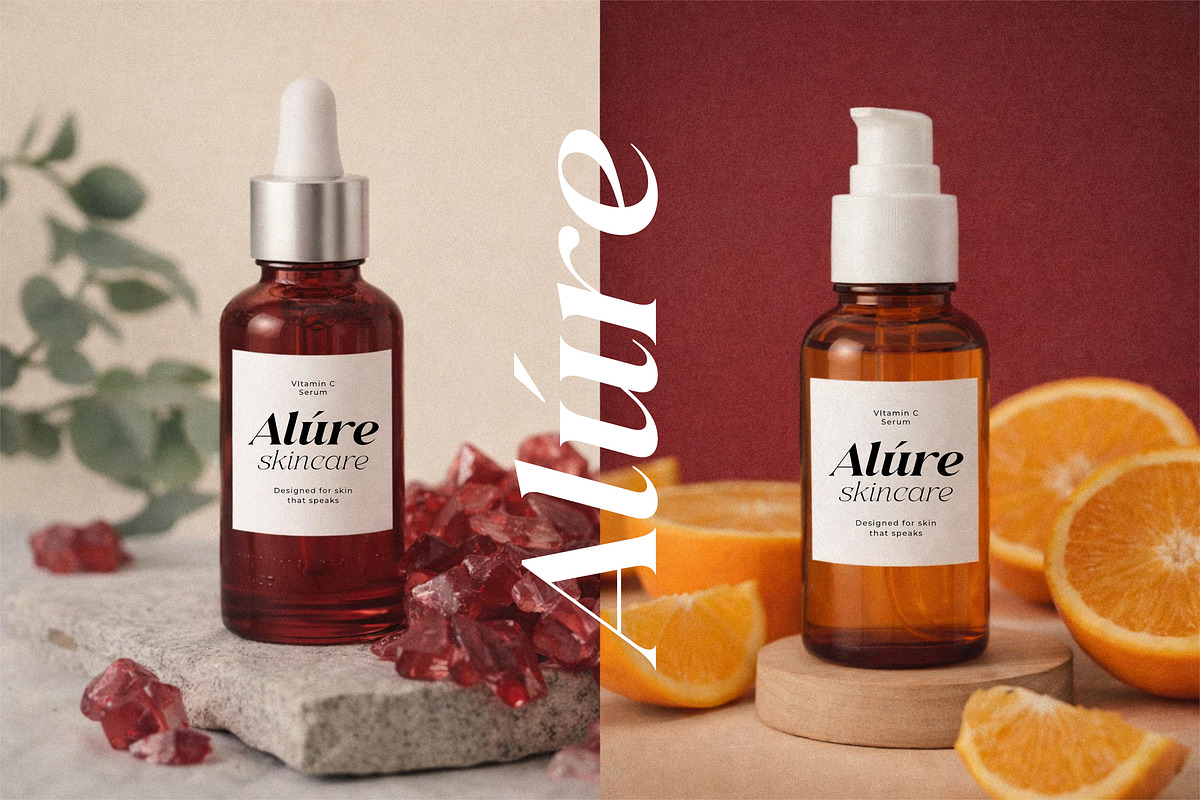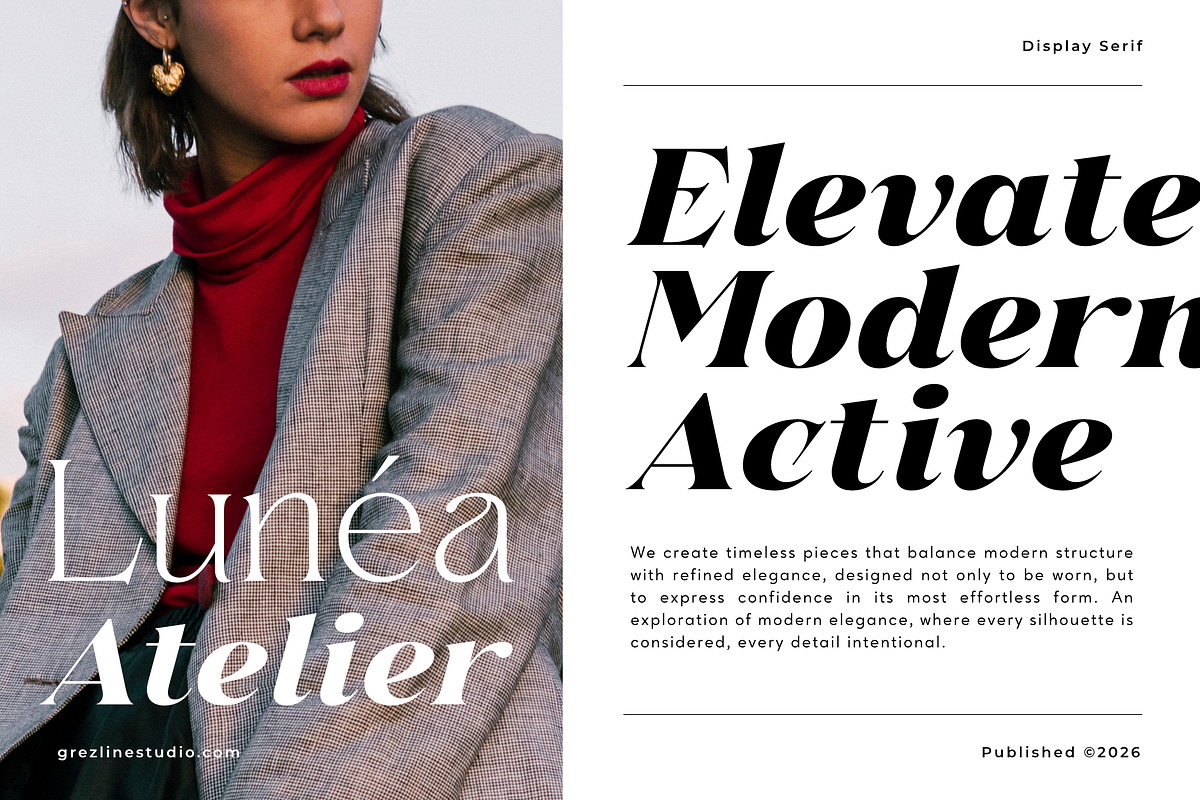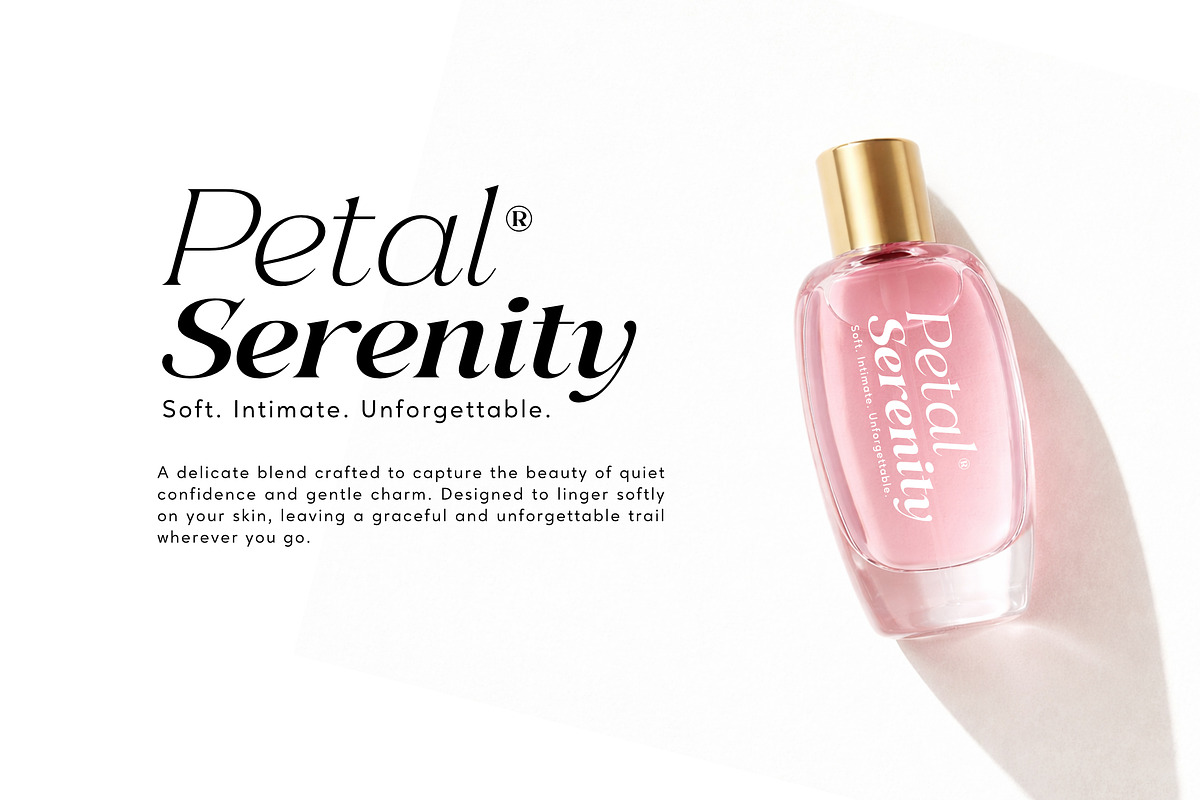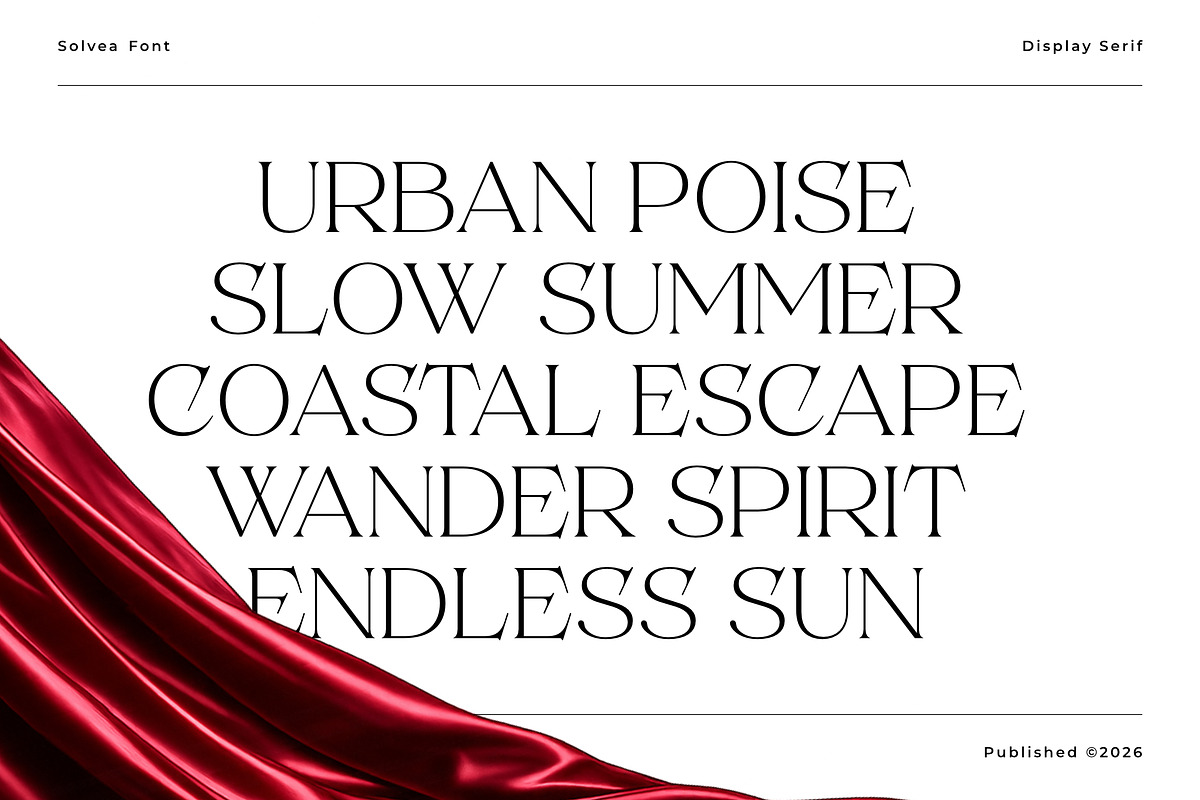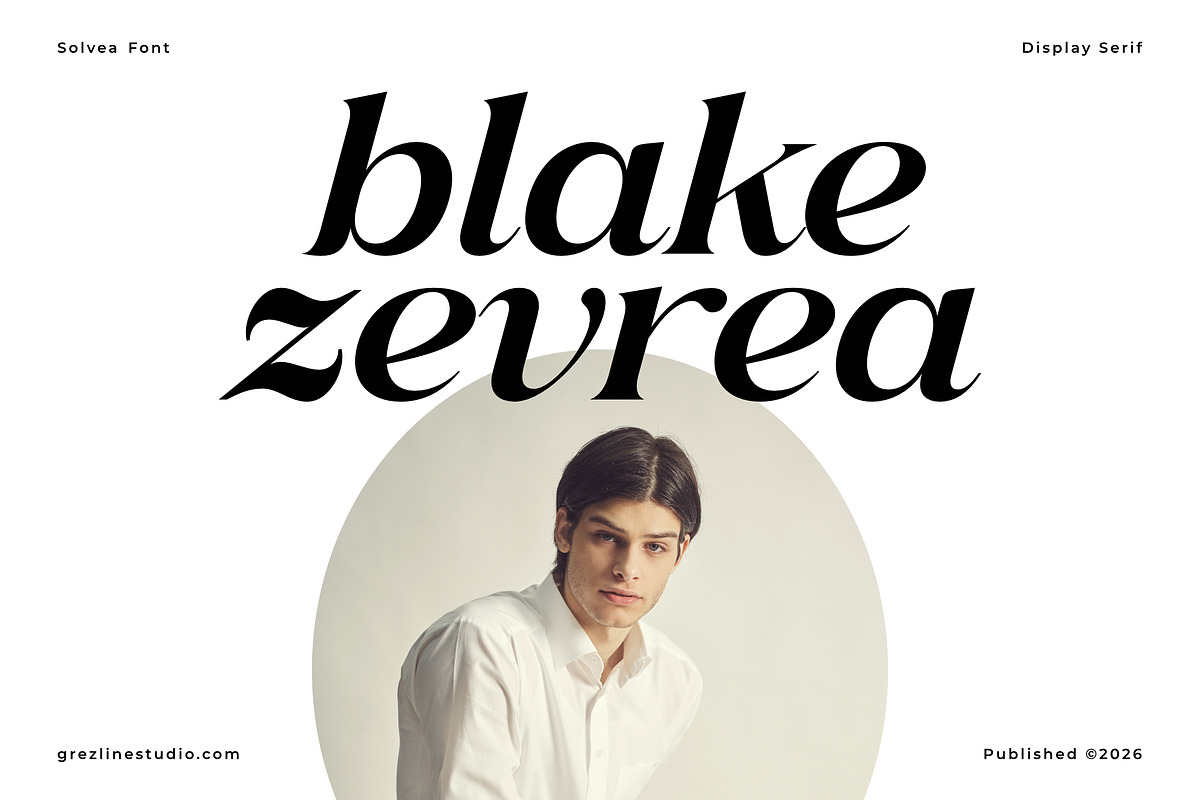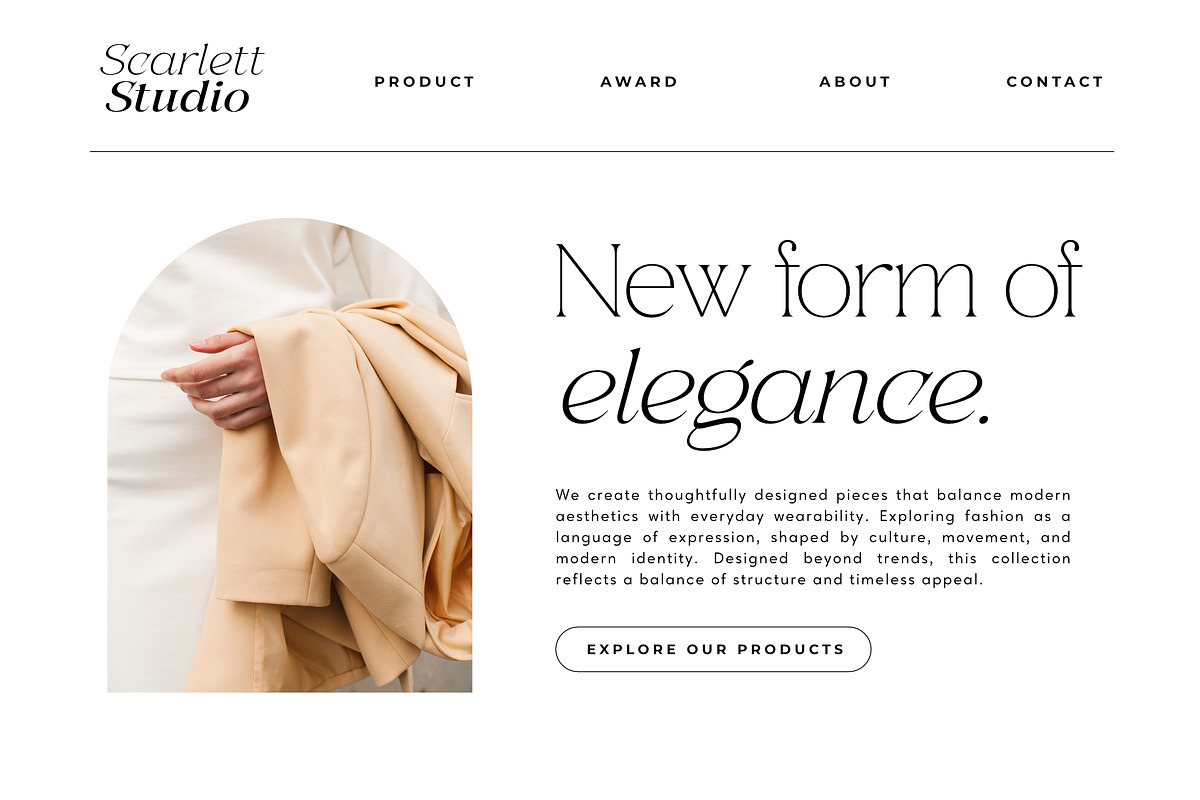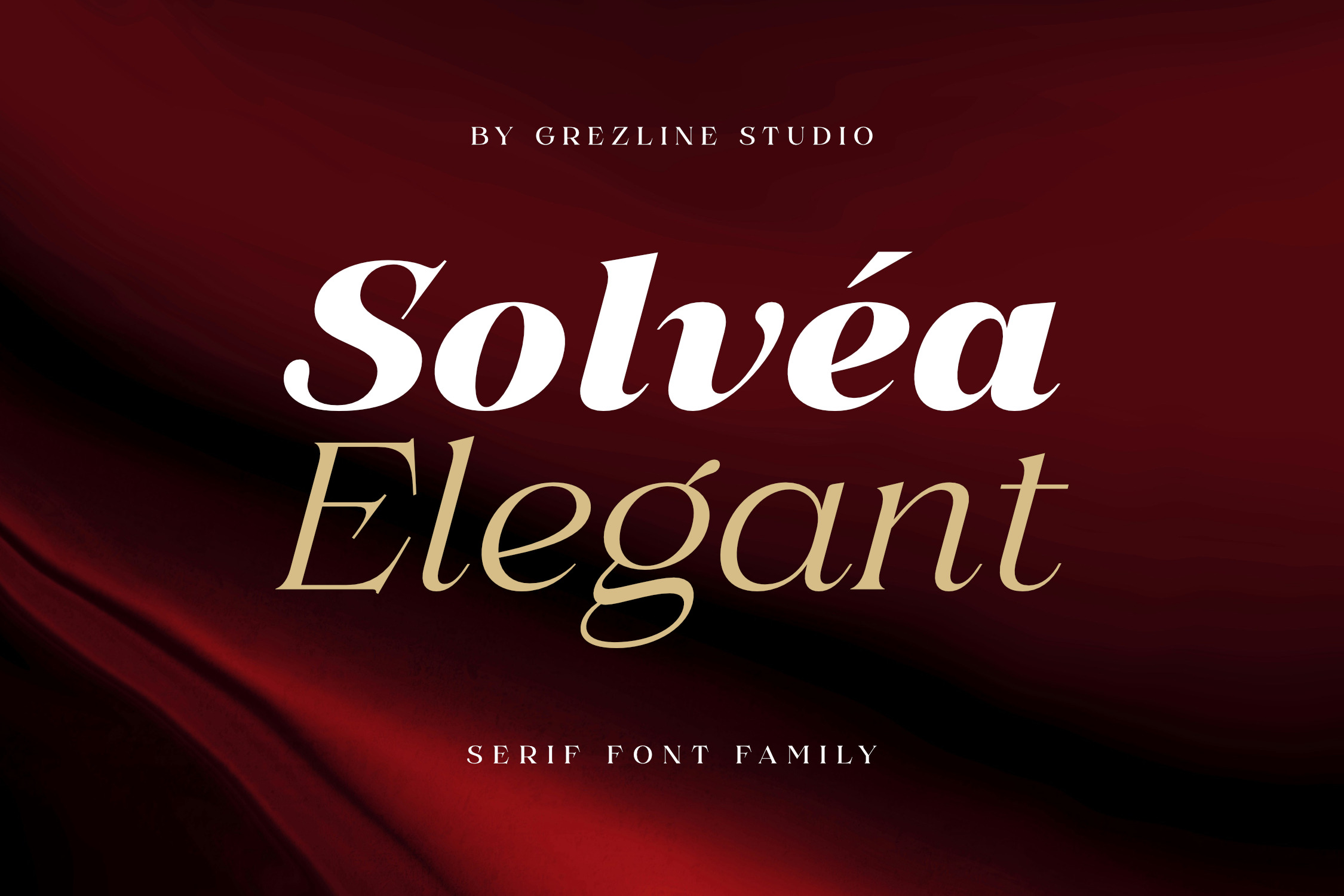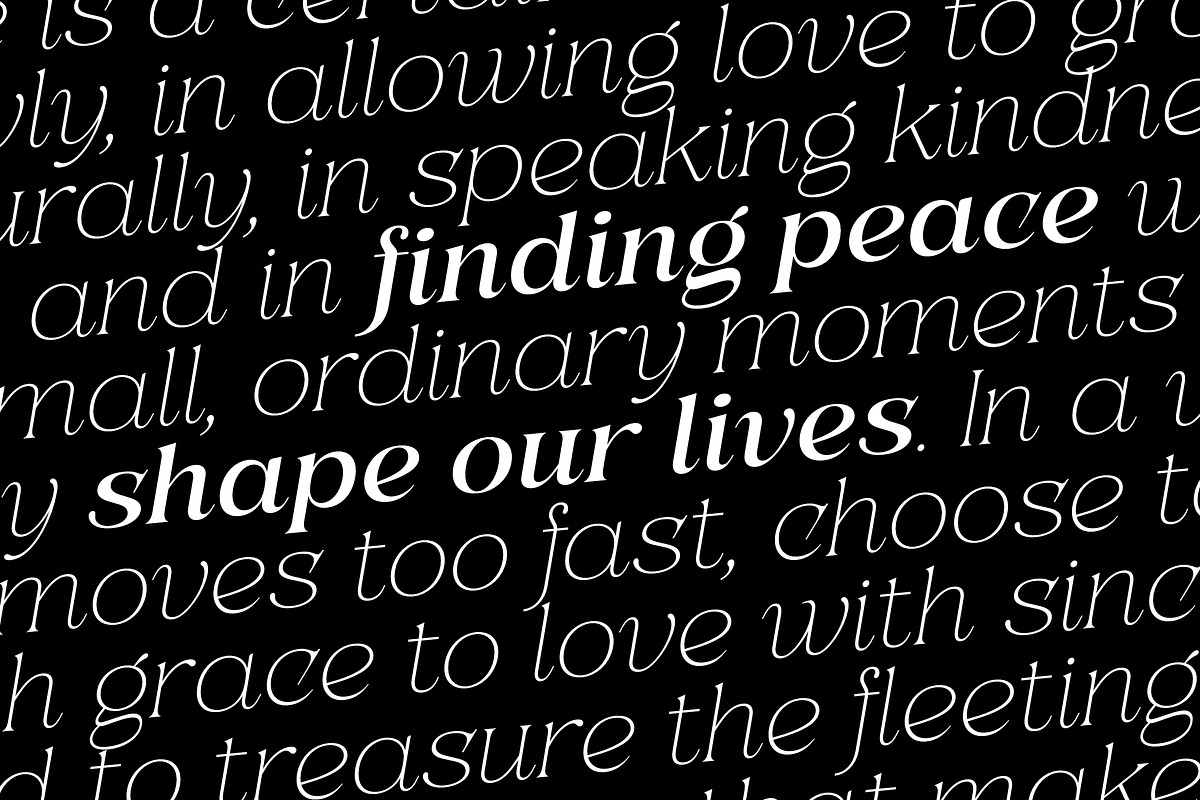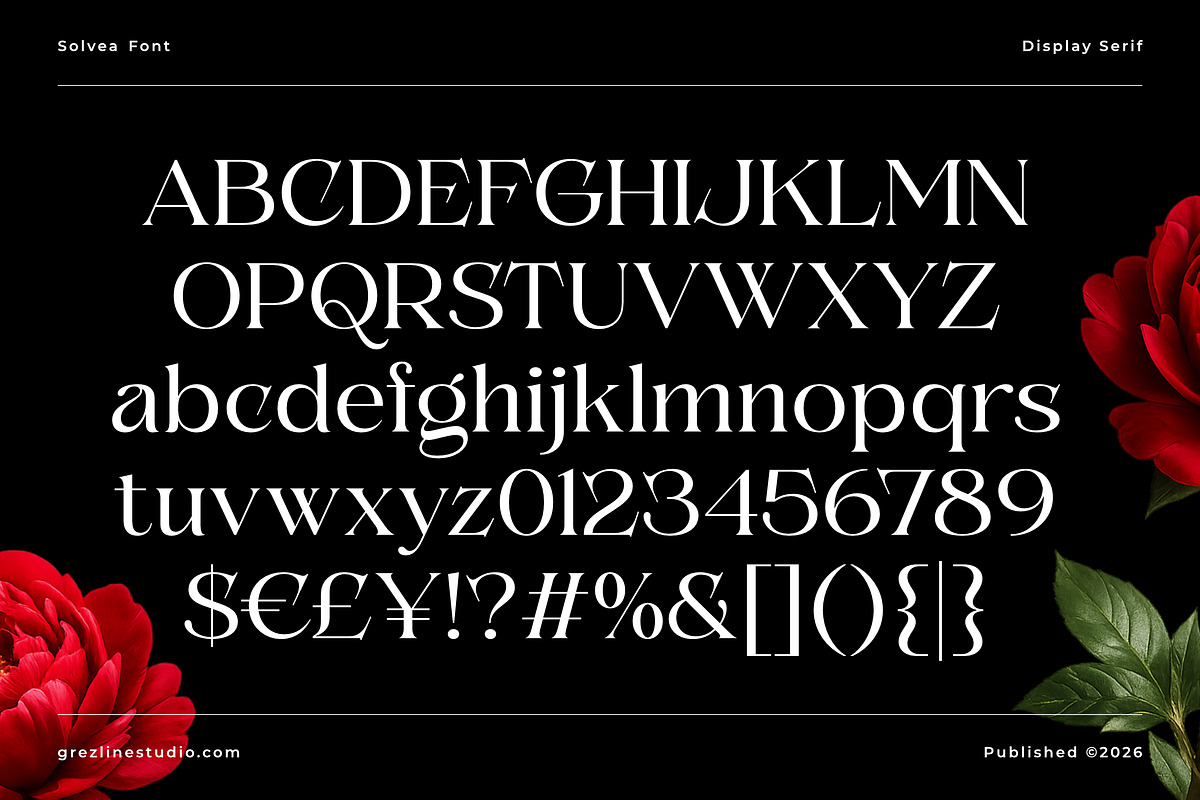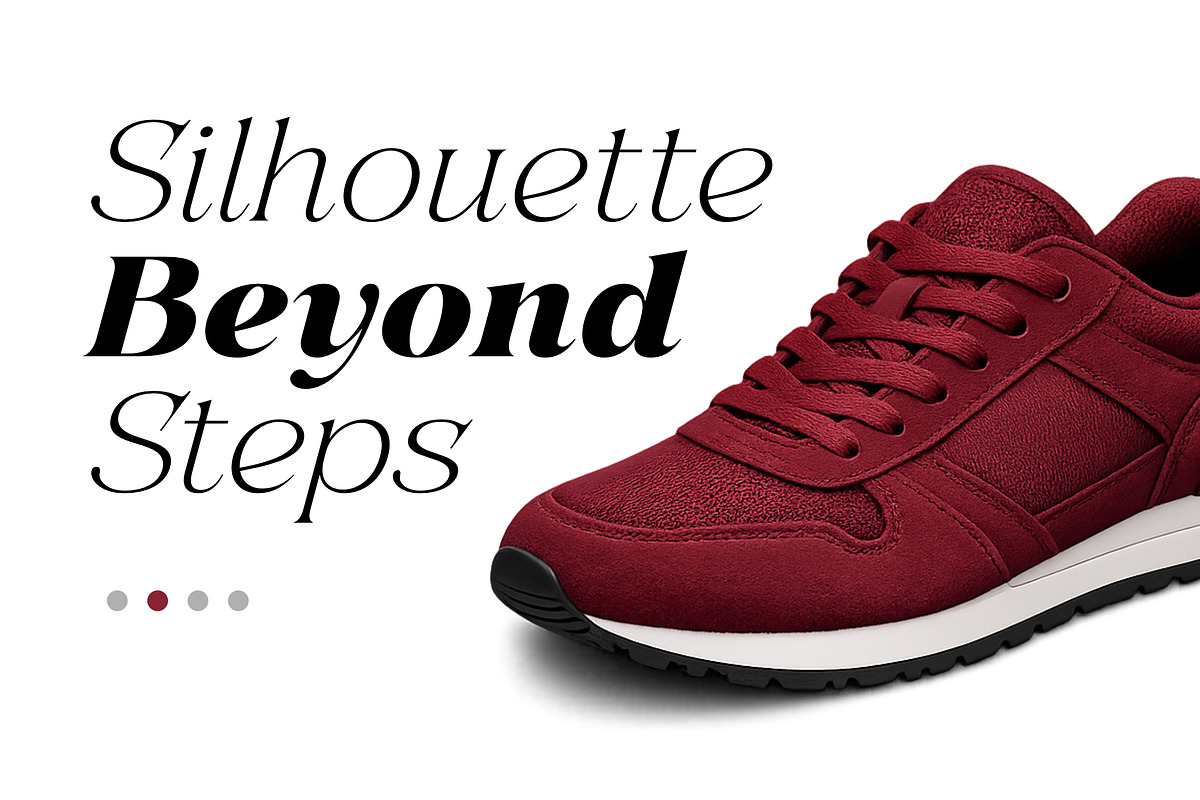
Solvéa – Serif Font Family
Solvea Typeface is designed to adapt seamlessly across various creative directions — from luxury branding and product packaging to modern digital layouts and editorial compositions. Its balanced structure and elegant flow allow every composition to feel intentional, polished, and visually compelling. Crafted with a refined high-contrast design, Solvea brings a distinctive presence while maintaining clarity and readability. Each letterform is carefully shaped to deliver both aesthetic appeal and functional versatility, making it suitable for headlines, logotypes, and sophisticated visual systems.